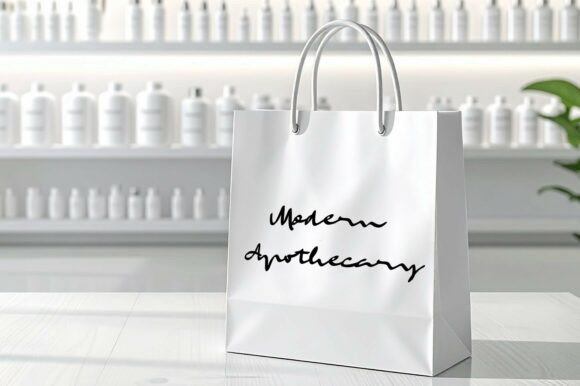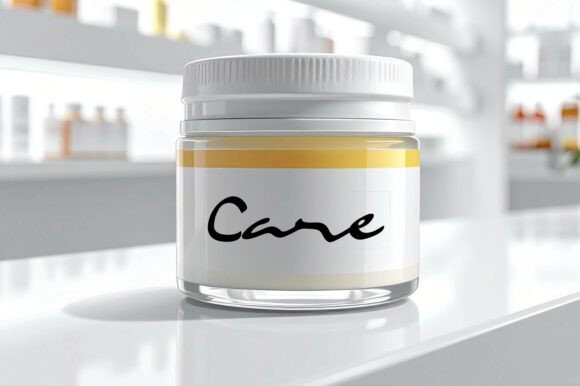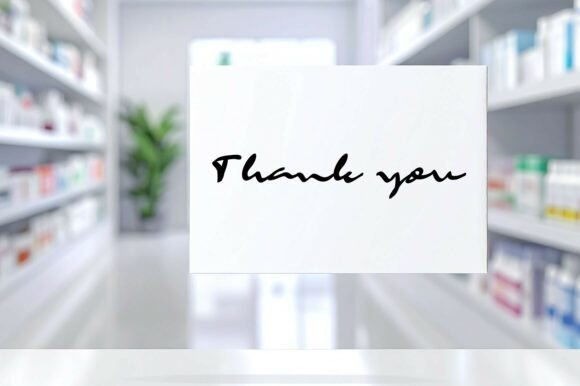
Introducing Apotik Font: The Perfect Blend of Modernity and Personalized Care
In the world of typography, few fonts manage to strike a balance between modernity and warmth. Apotik Font is one such exceptional typeface that embodies the essence of personalized care and contemporary design. This beautifully crafted, playful, and modern script font is designed to capture the hearts of designers and crafters alike, offering a unique aesthetic that is both authentic and approachable.
The Unique Character of Apotik Font
Apotik Font boasts a relaxed brushstroke style that gives it a distinct character, making it stand out in a sophisticated yet friendly way. Its flowing, handwritten letterforms exude a sense of warmth and trustworthiness, perfect for conveying a sense of personalized care. The font’s modern script style is ideal for designers looking to add a touch of elegance and sophistication to their projects.
Comprehensive Character Set
Apotik Font includes a comprehensive set of uppercase and lowercase letters, numerals, and standard punctuation, ensuring versatility for all your design needs. This extensive character set makes it easy to use Apotik for a wide range of projects, from branding and packaging to social media content and heartfelt invitations.
Ideal for Creative Projects
Apotik Font is ideally suited for branding and creative projects that require a distinctive, human touch. Its unique character makes it particularly effective for businesses like modern pharmacies, wellness brands, artisanal products, or any venture aiming for an elegant yet understated presence. Whether you’re designing a logo, packaging, or social media content, Apotik Font is the perfect choice.
Showcasing Apotik Font in Action
To demonstrate the versatility of Apotik Font, let’s take a look at some examples of how it can be used in different design projects. For instance, the font is beautifully showcased on the ‘Modern Apothecary’ bag and ‘Care’ bottle, where its elegant and modern style perfectly complements the branding. Apotik Font is also ideal for heartfelt invitations, such as wedding invitations, birthday cards, or baby shower announcements, where its warm and personalized aesthetic can shine.
Apotik Font offers numerous benefits for designers and crafters, including:
- Unique and distinctive style: Apotik Font’s relaxed brushstroke style sets it apart from other fonts, making it perfect for designers looking to create unique and memorable designs.
- Versatility: With its comprehensive character set, Apotik Font can be used for a wide range of projects, from branding and packaging to social media content and invitations.
- Elegant and modern aesthetic: Apotik Font’s modern script style and elegant letterforms make it perfect for designers looking to create sophisticated and contemporary designs.
- Warm and personalized: Apotik Font’s flowing, handwritten letterforms exude a sense of warmth and trustworthiness, making it ideal for designers looking to create designs that convey a sense of personalized care.
In conclusion, Apotik Font is a beautifully crafted, playful, and modern script font that offers a unique blend of modernity and personalized care. Its relaxed brushstroke style, comprehensive character set, and elegant aesthetic make it perfect for designers and crafters looking to create distinctive and memorable designs. Whether you’re designing a logo, packaging, or social media content, Apotik Font is the perfect choice for any project that requires a touch of elegance, sophistication, and warmth.